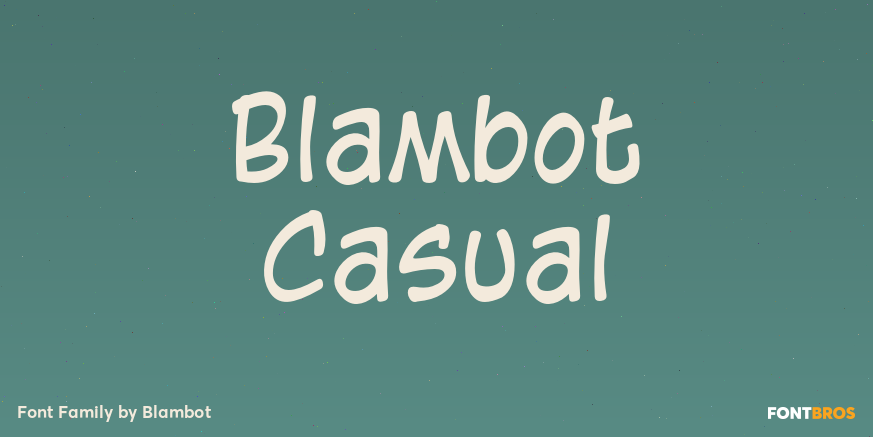
Blambot Casual
Dozens of International characters! Regular, Italic, Bold and Bold/Italic included. In 2001 a new trend began in comics lettering which typically until then had been all capital letters. The problem created by lettering comics in Sentence case is the…